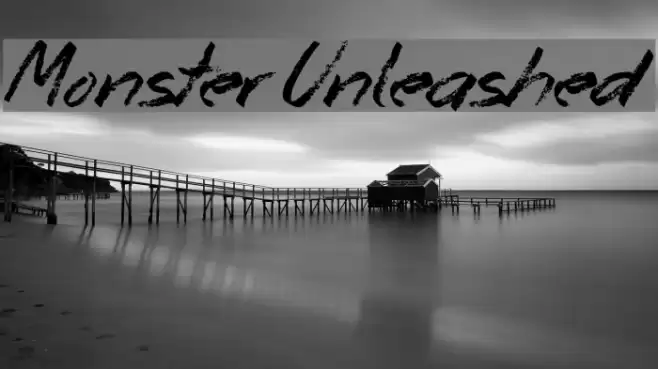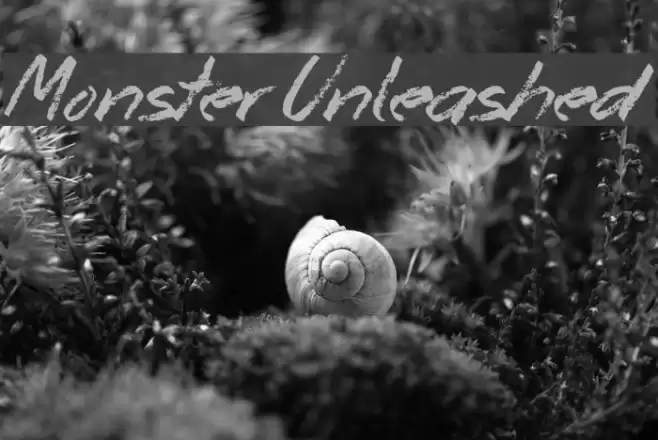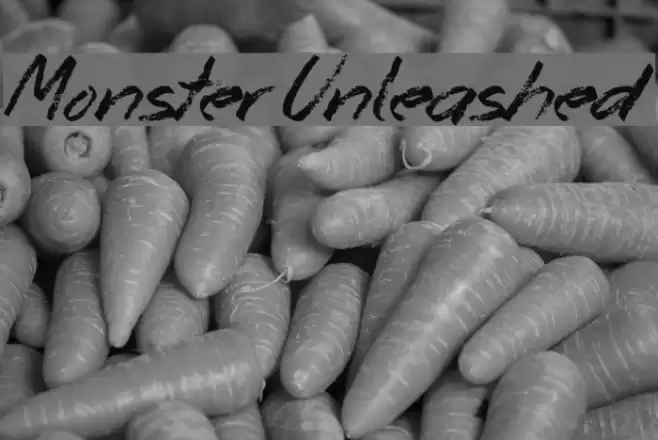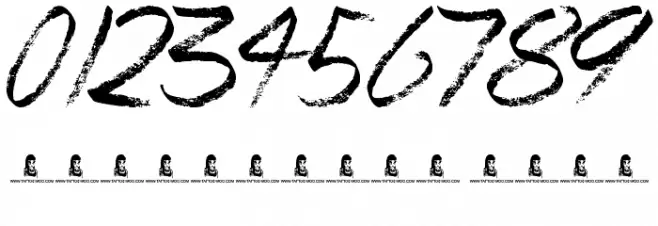
Monster Unleashed Font
Monster Unleashed Description
This font features a bold, expressive style with a rough, textured appearance that mimics the look of brush strokes. The characters are dynamic and energetic, with a slightly slanted orientation that adds to their sense of movement. The uppercase and lowercase letters maintain a consistent style, while the numbers and special characters integrate seamlessly into the overall design. The texture gives it a gritty, raw feel, making it stand out in any design project.
A bold, textured brush-style font with dynamic, slanted characters from Uncategorized fonts.
- Proposed Projects: Ideal for projects that require a bold statement, such as posters, album covers, or branding for edgy or creative industries.
- Overall Style: Modern, Decorative